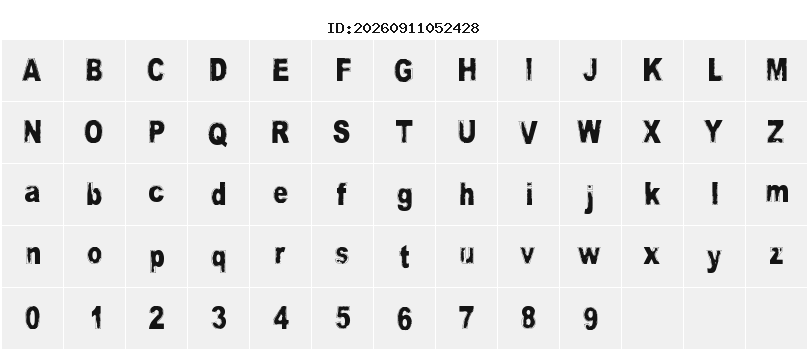
Velvet Queen Preview
• Font Name: Velvet Queen
• Full Font Name: Velvet Queen
• Version: Version 1.00 December 11, 2015, initial release
About Velvet Queen.ttf
Velvet Queen.ttf is a modern, elegant sans-serif font designed for ultimate readability and visual harmony. Perfect for branding, headlines, web design, and print materials.